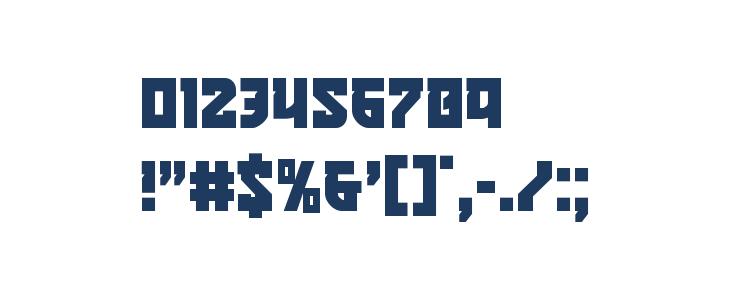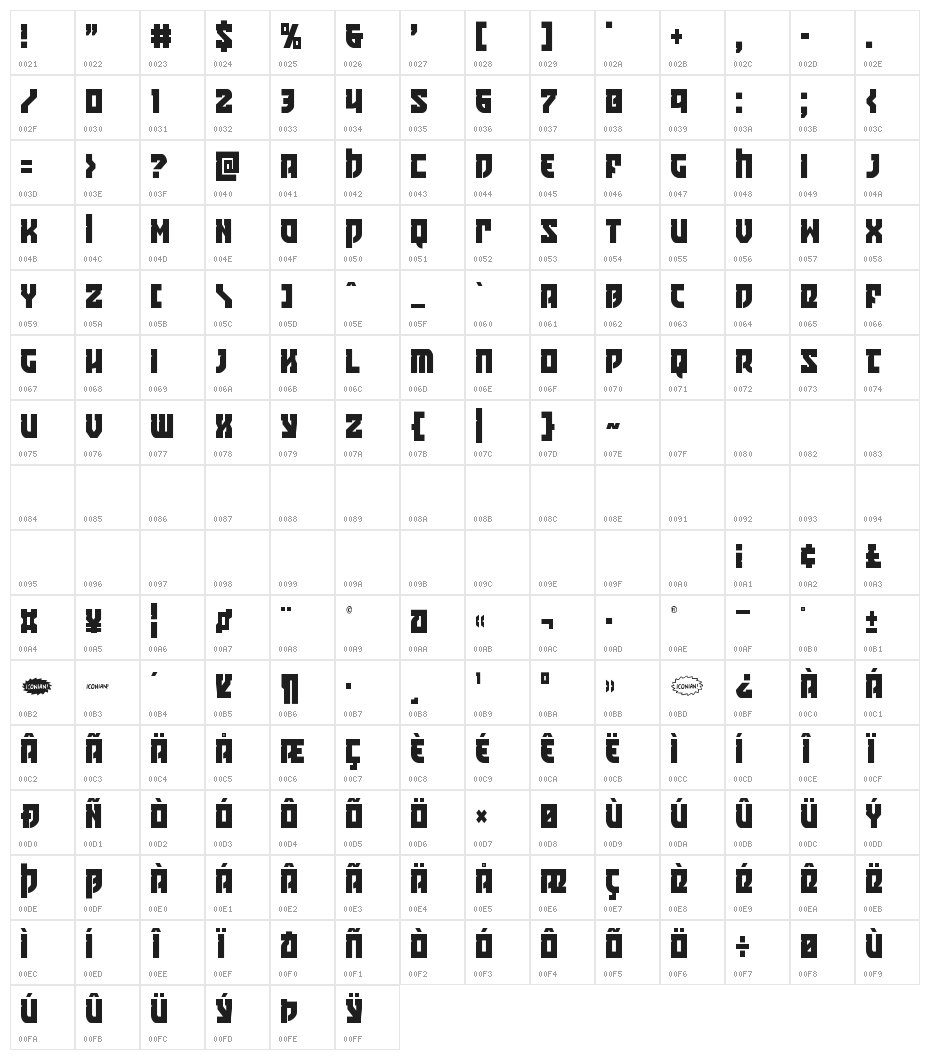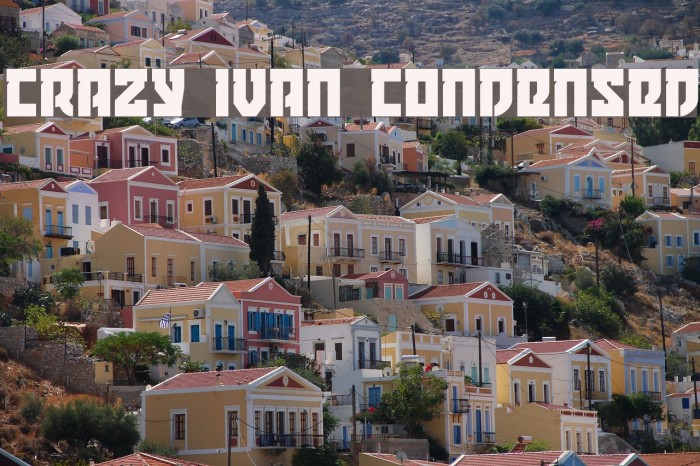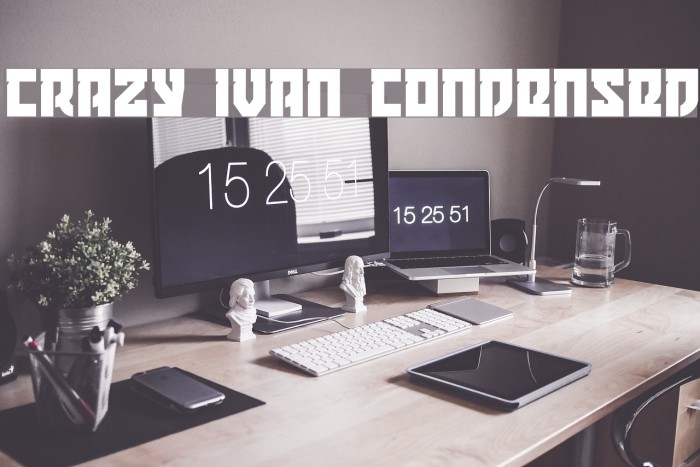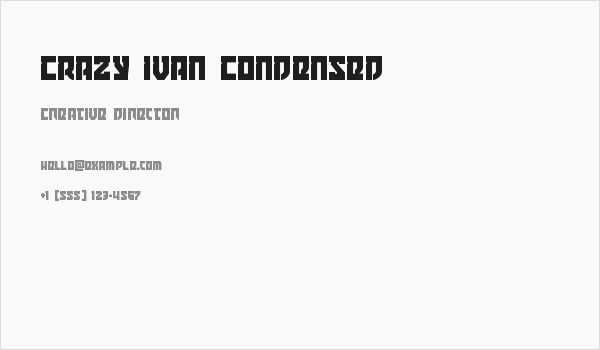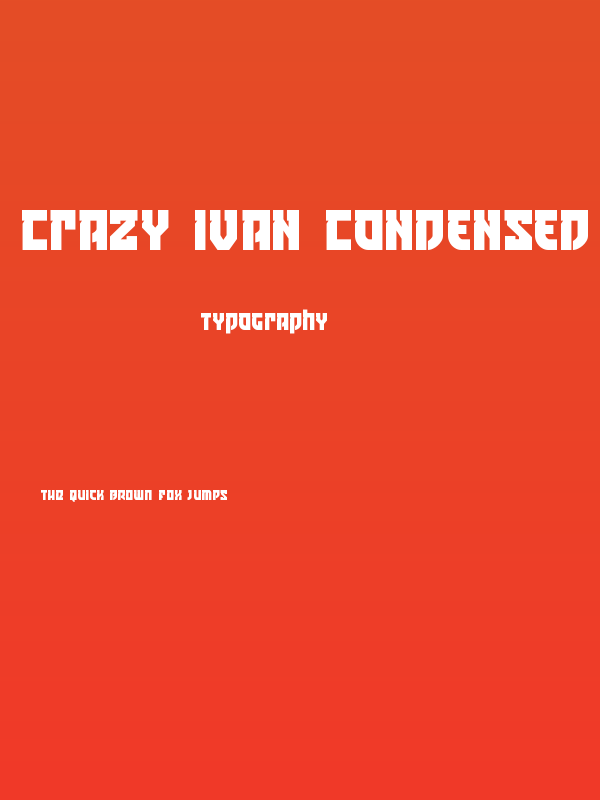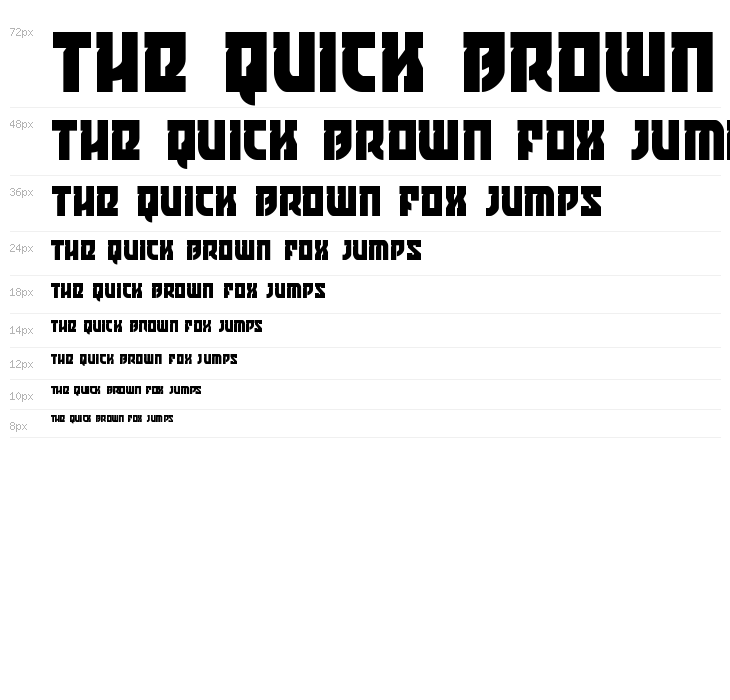
Crazy Ivan Condensed Font
Crazy Ivan Condensed Description
This font features a bold and striking design with a condensed structure that emphasizes strong geometric shapes and sharp angles. The uppercase letters are particularly prominent, showcasing a blocky and robust appearance. The lowercase letters maintain the same boldness, ensuring consistency throughout the typeface. Numbers and special characters are equally bold, making them stand out in any design. The overall style is modern and industrial, with a hint of retro influence, making it suitable for projects that require a strong visual impact.
| Overall Style | Modern, Industrial |
| Proposed Projects | Ideal for posters, headlines, logos, and branding materials that require a bold and impactful presence. |